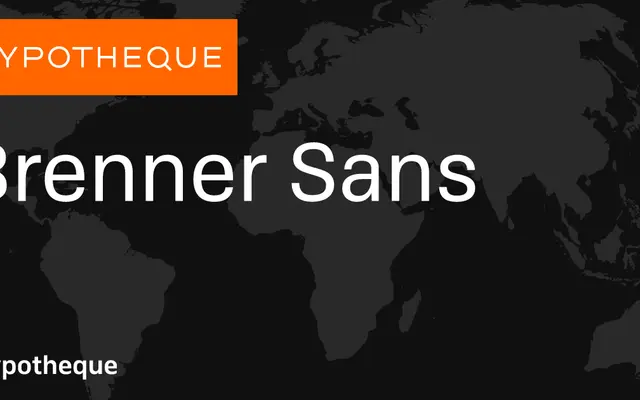
Brenner Sans
A humanist sans-serif from Typotheque offered in four weights with matching italics, a condensed sub-family and a variable font variant.
Available in Light, Regular, Medium and Bold with corresponding italics, the family extends into a condensed cut for tighter settings and a variable font for flexible weight control. The Brenner Sans Condensed mirrors the full weight range of the upright family. Part of the broader Brenner system, it reads as a workmanlike text sans suited to general editorial and interface use.
Brenner Sans is a humanist sans-serif with a range of weights and a condensed sub-family, consistent with contemporary text-oriented humanist grotesque design.